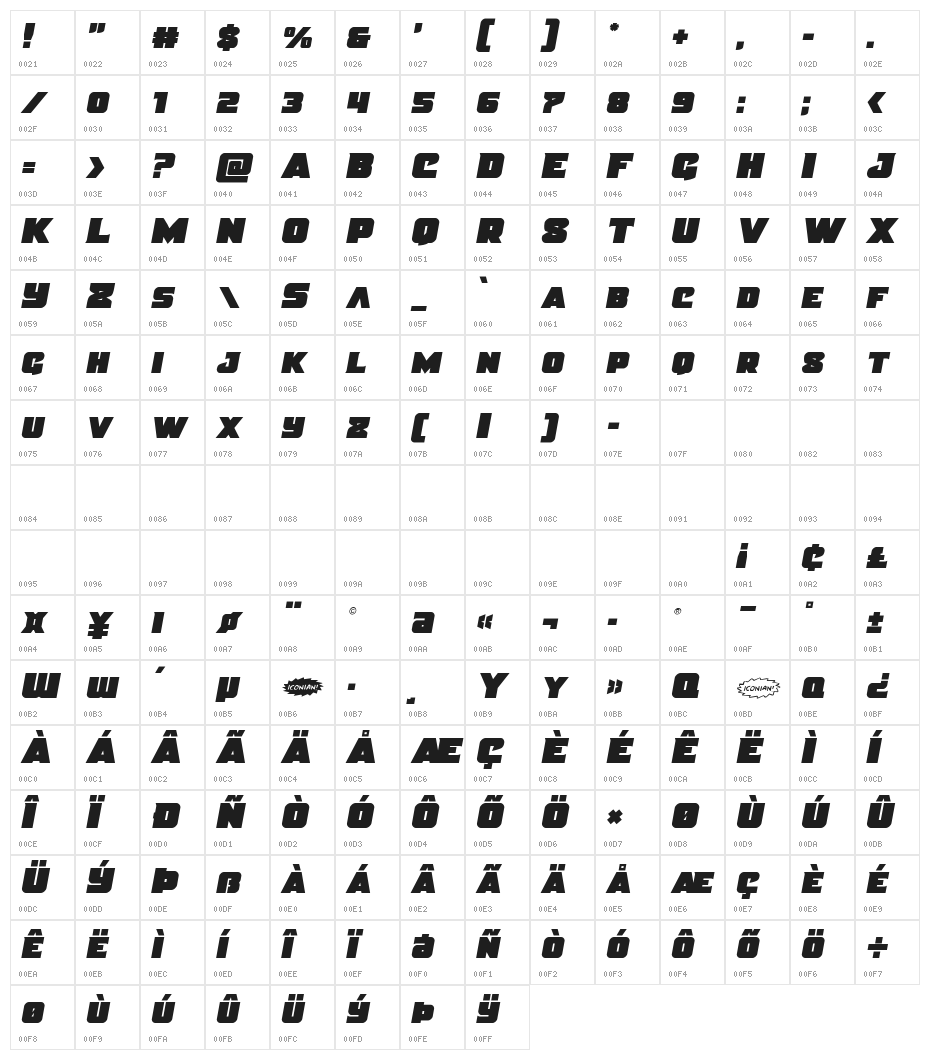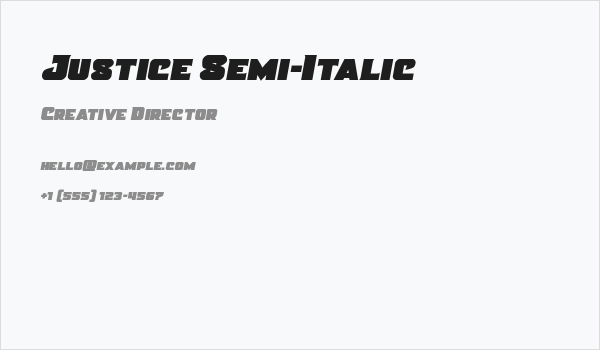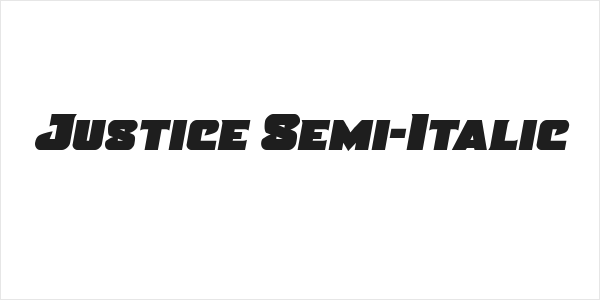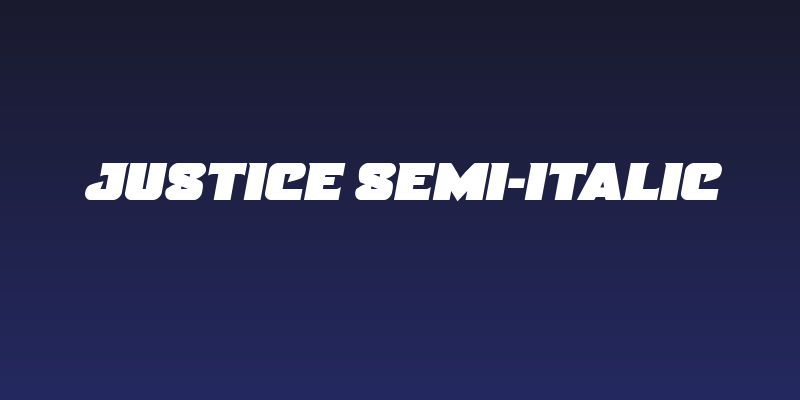
Justice Semi-Italic Font
Justice Semi-Italic Description
This font features a bold and dynamic style with a semi-italic slant, giving it a sense of movement and energy. The characters are robust and heavily weighted, making them stand out with a strong presence. The angular cuts and sharp edges contribute to a modern and aggressive aesthetic. The uppercase and lowercase letters maintain a consistent style, with the lowercase slightly smaller but equally bold. Numbers and special characters are designed to match the overall boldness and angularity, ensuring uniformity across all elements. This font is ideal for projects that require a powerful and impactful visual statement.
| Proposed Projects | Perfect for sports branding, action movie posters, video game titles, and dynamic advertising campaigns. |